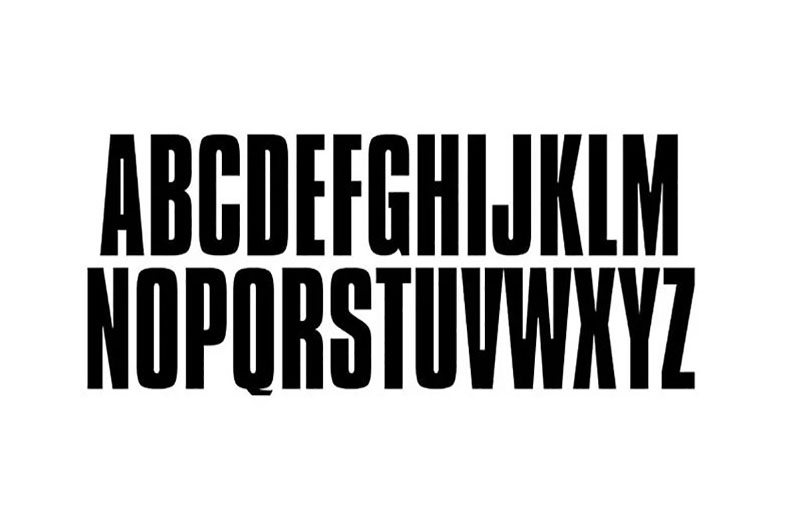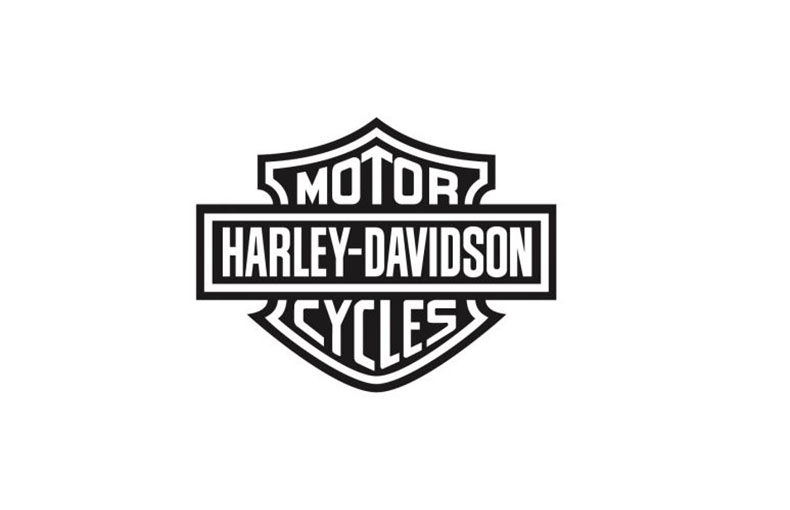
Introducing the Harley Davidson Font, a logo font family named after the American motorcycle manufacturing company based in Milwaukee, Wisconsin.
Founded in 1903 by William S. Harley, Arthur Davidson, Walter Davidson, and William A. Davidson, the company generated $5.647 billion in revenue in 2017.
Thus you can estimate the popularity of this company in America. Here on our site, we want to tell you the font family that was used for the Harley-Davidson logo.
Its name is Compacta Font. A great legendary typeface contributed by Fred Lambert to Letterset in 1963.
This display typeface contains 260 glyphs and 290 binary stored kerning pairs. Moreover, it supports 71 different languages.
The font features clean lines, sharp edges, and a distinctive lettering style that perfectly captures the brand’s rebellious and adventurous image.
The font has been widely used in advertising, memes, and internet culture due to its bold and attention-grabbing appearance.
Moreover, it is ideal for multiple projects like posters, emblems, shopping bags, branding, product designs, product packaging, logos, creating book layouts, product packaging, game graphics, stationary, movie titling, social media posters, logo, mockups, and a playful vibe.
Yes, you can use the Compacta font as a similar typeface.
Is the font used only for logos?
No, you can also use it for various branding materials, signage, merchandise, and advertising.
Why is the font important for the brand?
The font plays a crucial role in Harley Davidson’s brand recognition.